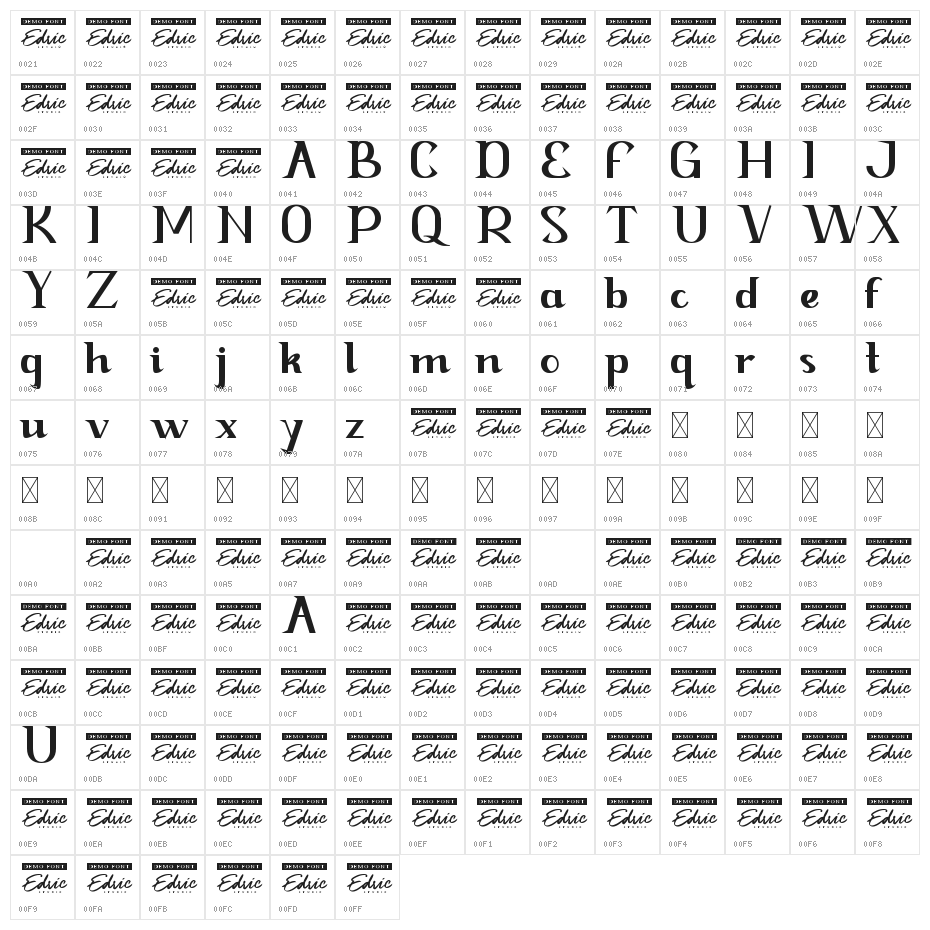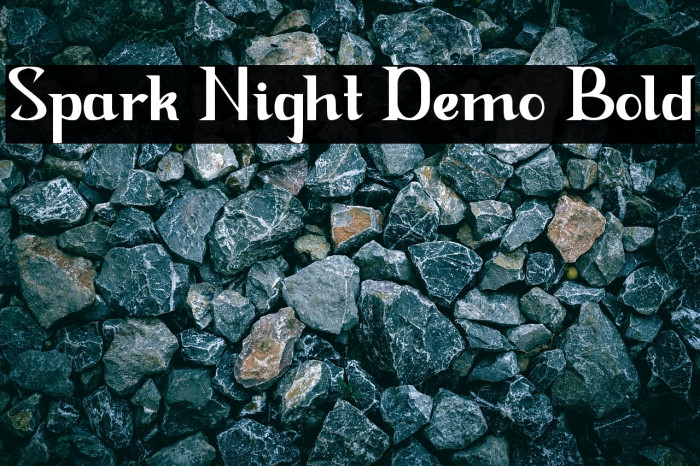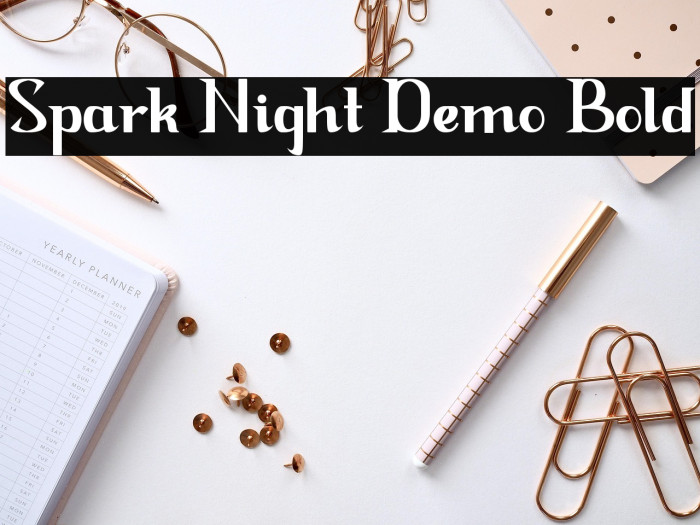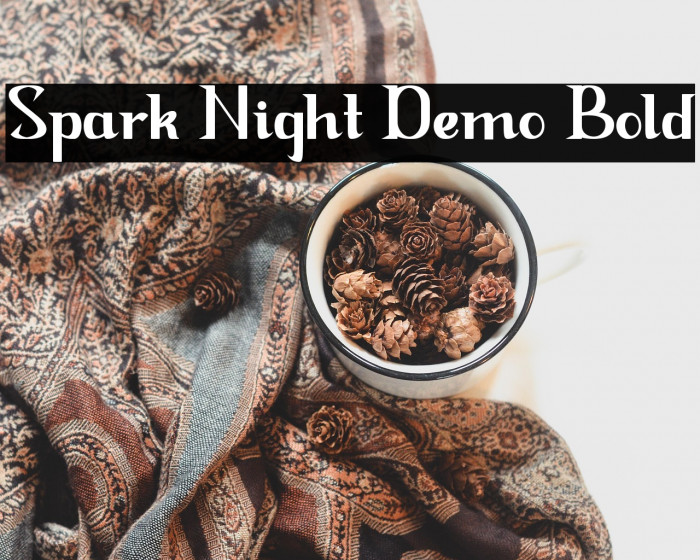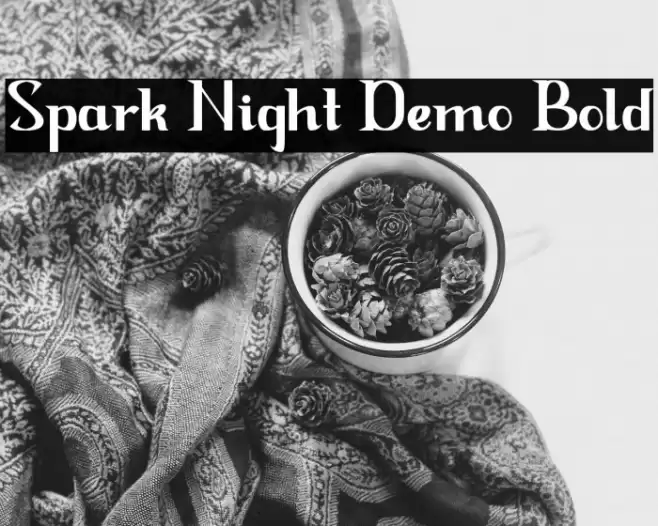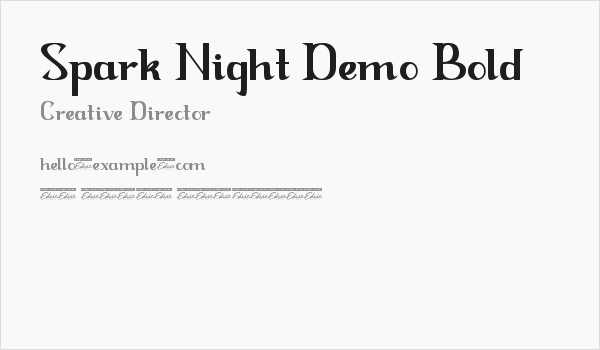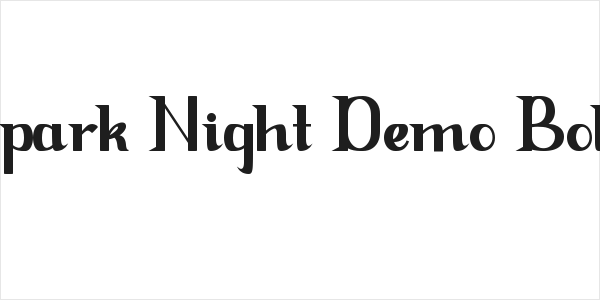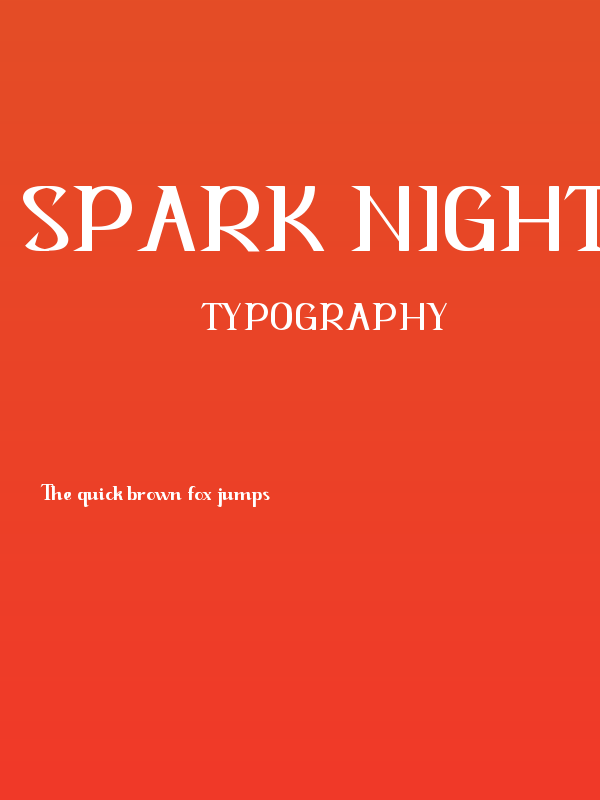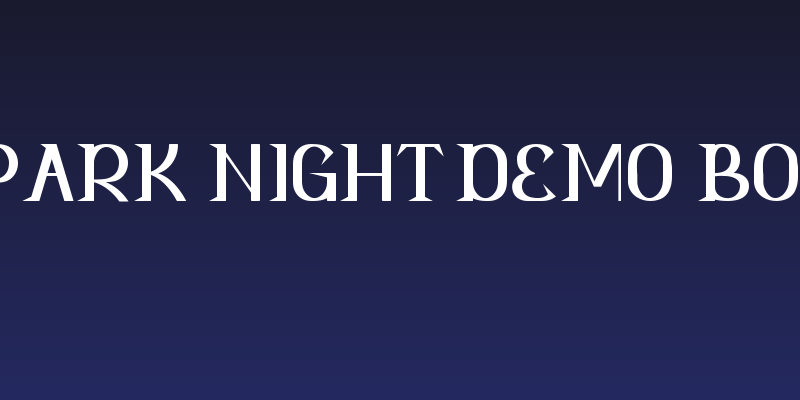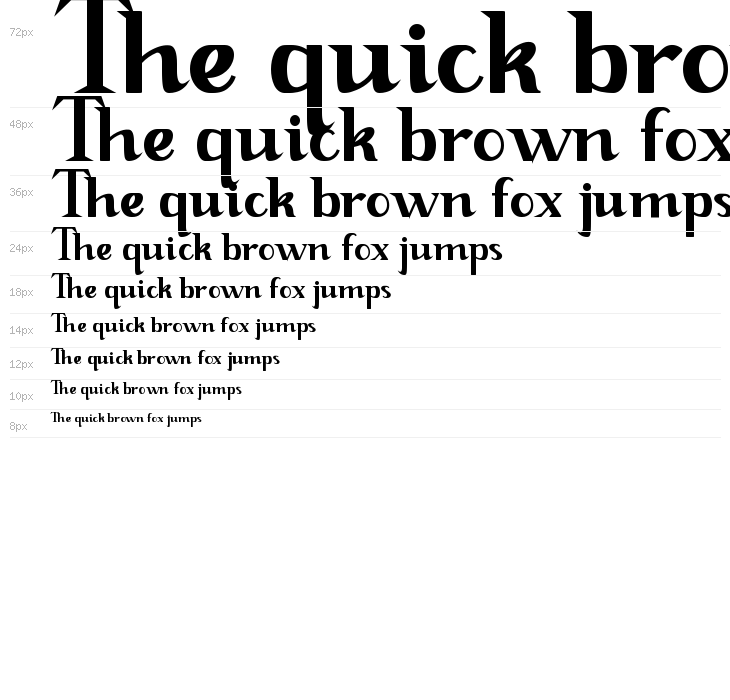
Spark Night Demo Bold Font
Spark Night Demo Bold Description
This font features a bold and striking design with a modern twist. The uppercase letters are characterized by sharp, angular serifs and a strong vertical emphasis, giving them a commanding presence. The lowercase letters maintain a similar style, with smooth curves and a consistent weight throughout. The overall appearance is both elegant and assertive, making it suitable for a variety of design applications. The spacing between characters is balanced, ensuring readability while maintaining the font's distinctive style. The font's high contrast in stroke thickness adds to its dynamic and eye-catching appeal.
| Proposed Projects | Ideal for headlines, branding, and editorial design where a bold statement is needed. |